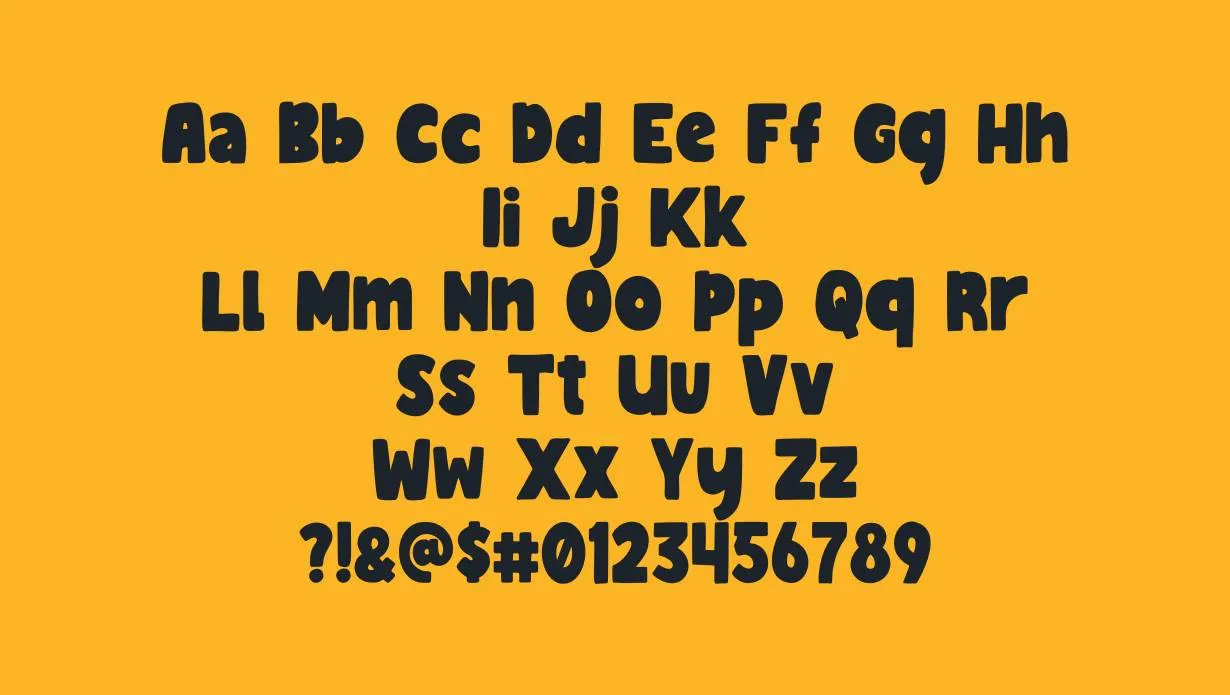
The Minions Font captures the playful and whimsical style of the beloved characters. Ideal for children’s parties or fun projects, its animated characters add a touch of joy and humor.
| Name | The Minions Font |
| Designer | Robert Slimbach |